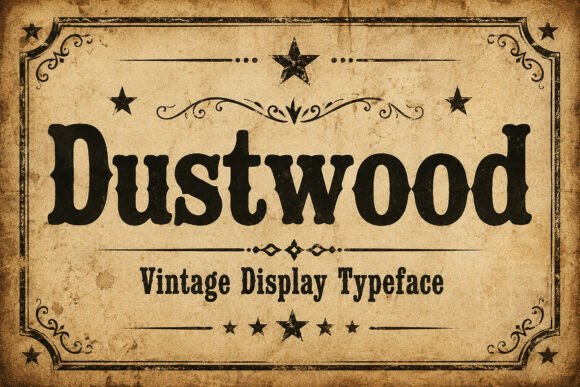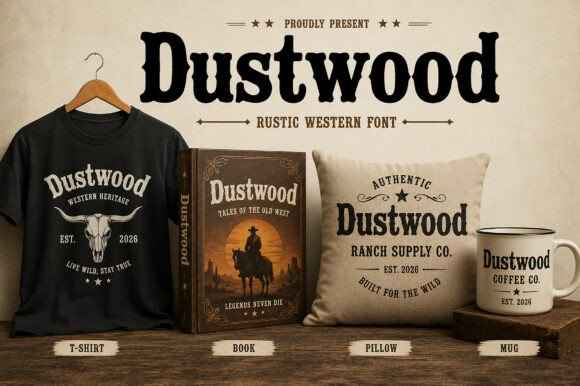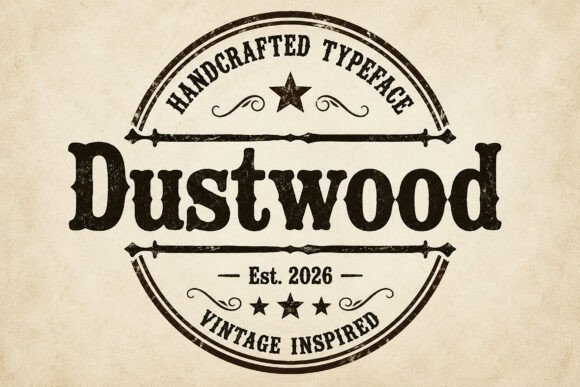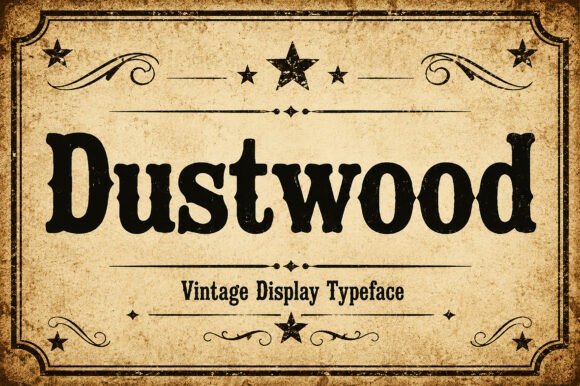
Introduction to Dustwood Font
Introducing Dustwood, a robust and whimsical slab serif typeface that brings a joyful charm to every design it touches.
Dustwood exudes boldness with its substantial letterforms and subtly irregular edges, all the while maintaining a soft, handcrafted vibe, owing to its gentle serif details The result is a font that draws the eye, blends energy with approachability and remains effortlessly legible.